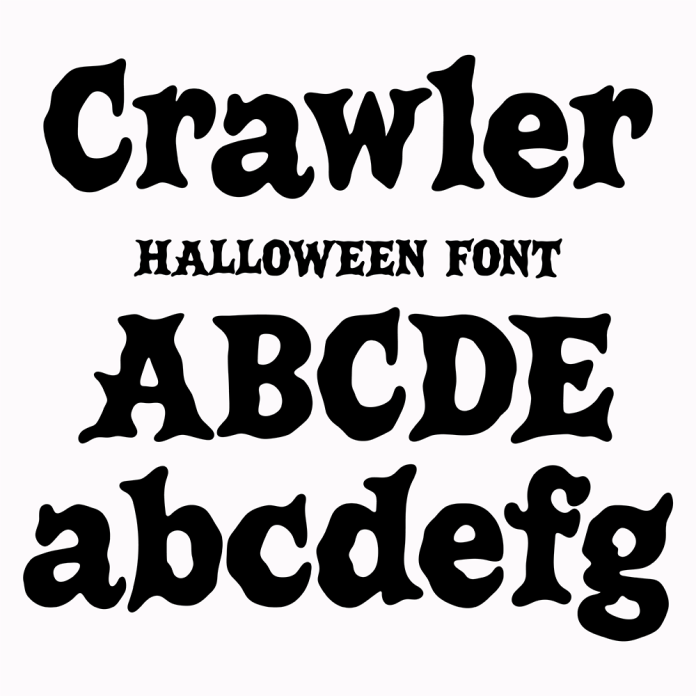
BFC Crawler Spooky Scary Zombie Halloween Font is a decorative serif font perfect for Halloween-themed designs. It features spooky and scary zombie-inspired elements, making it ideal for creating eye-catching and eerie designs for the Halloween season. This font is sure to add a chilling touch to any project.